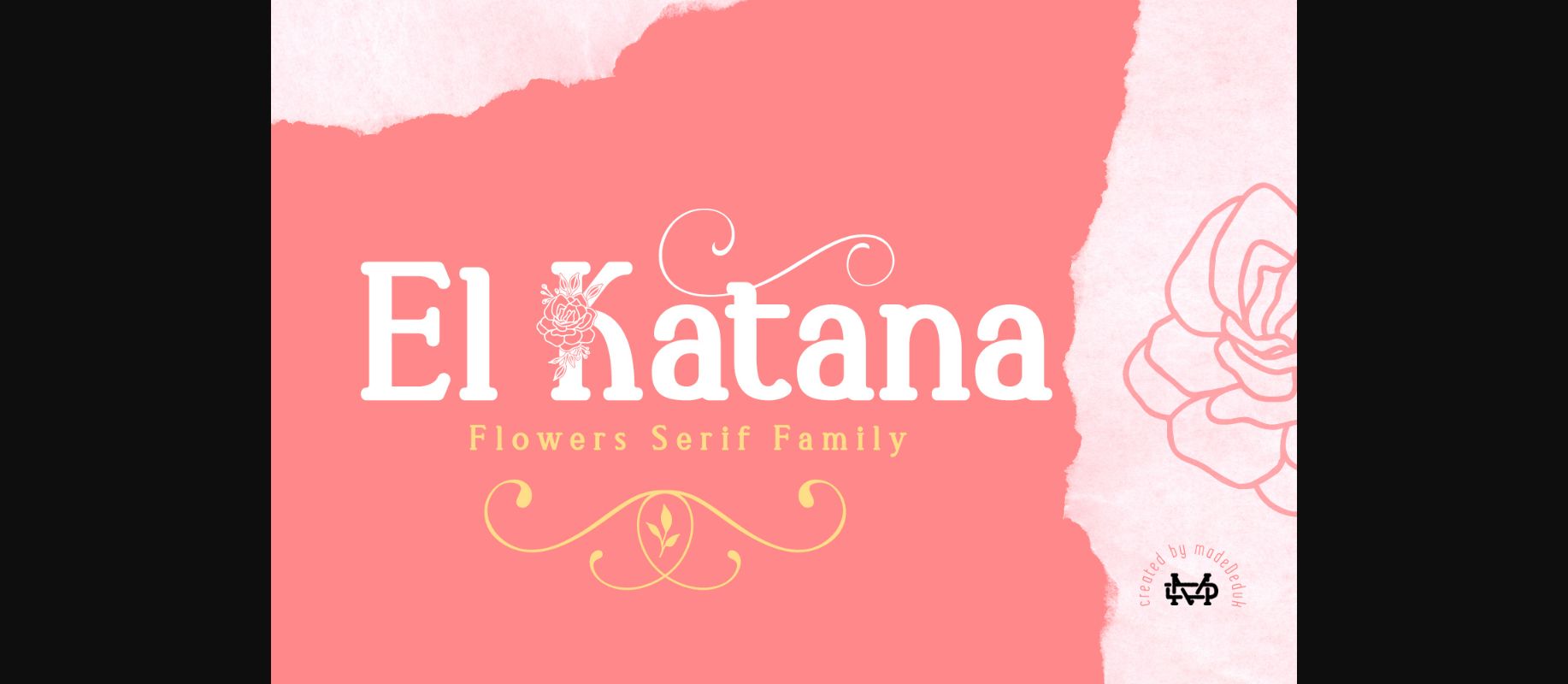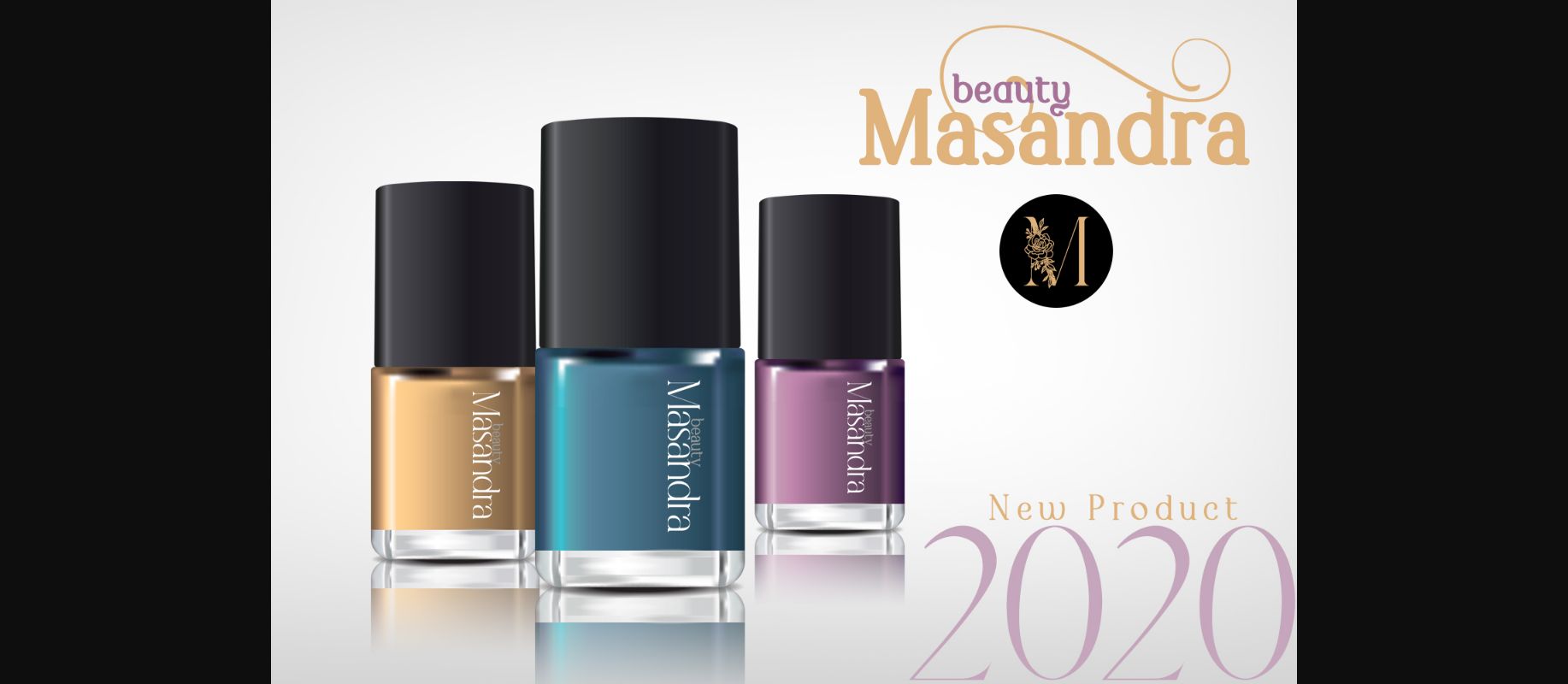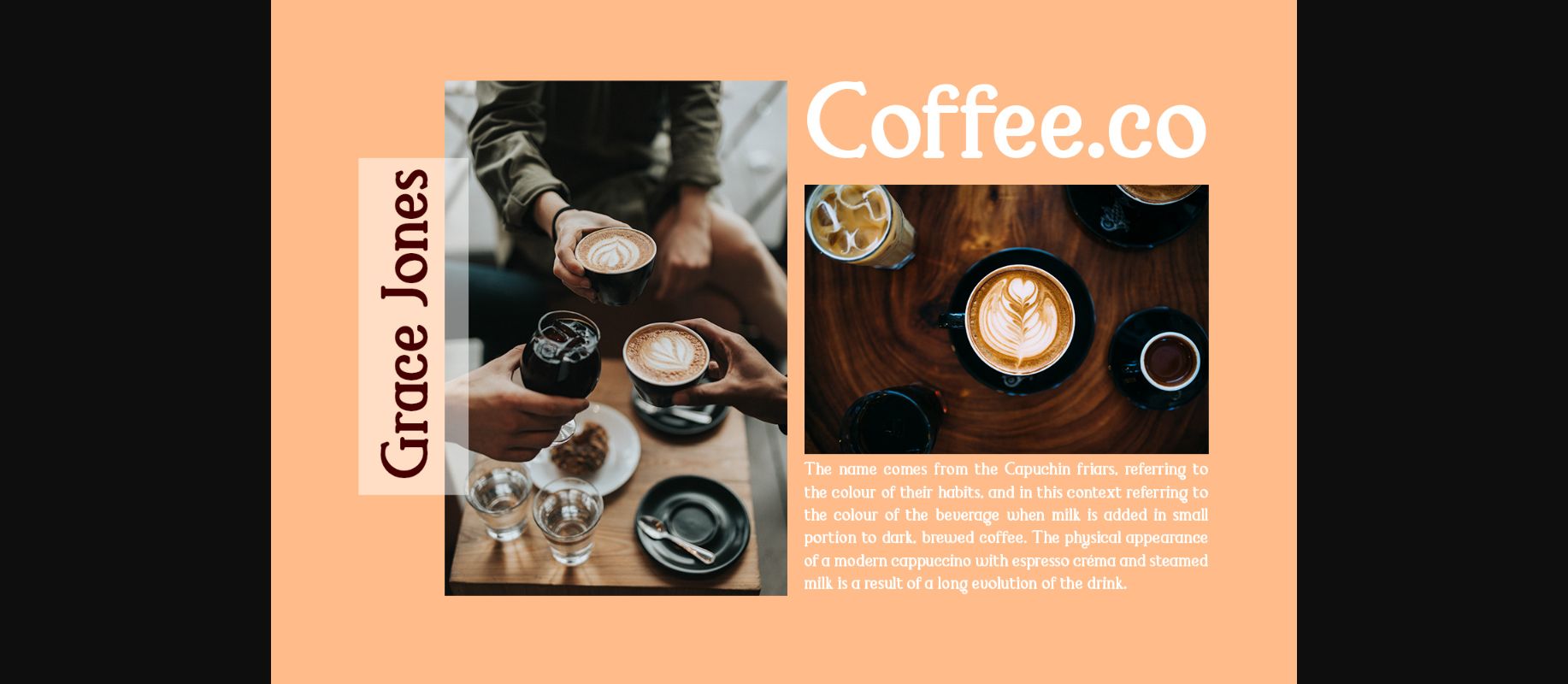
About El Katana Font
Create gorgeous and timeless designs with El Katana, an interesting and unique decorative font.
Fall in love with its incredibly stylish look and use it for logos, quotes, invitations, business cards, power point presentations, and more!